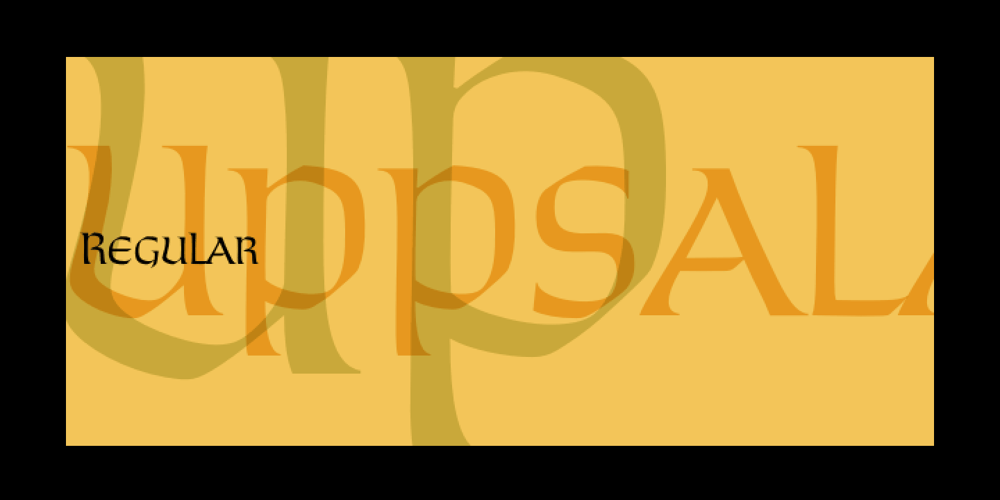
Uppsala LP Font Family was designed by Garrett Boge, Paul Shaw and published by LetterPerfect. Uppsala LP contains 1 styles and family package options. Uppsala is a new and original uncial typeface designed by Paul Shaw in collaboration with Garrett Boge in 1998. Its strongly chiseled shapes were inspired by historical northern European manuscript lettering. The face is appropriate for short text or display settings. Uppsala is part of the LetterPerfect Swedish Set